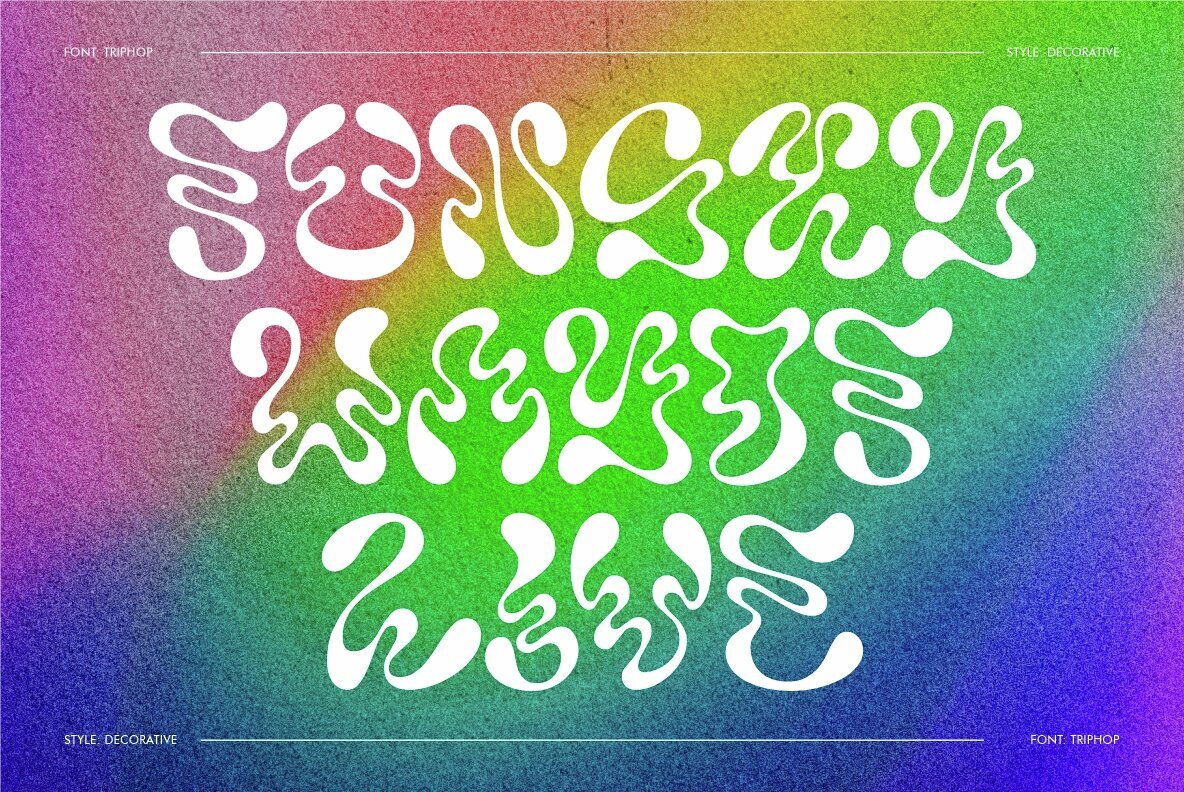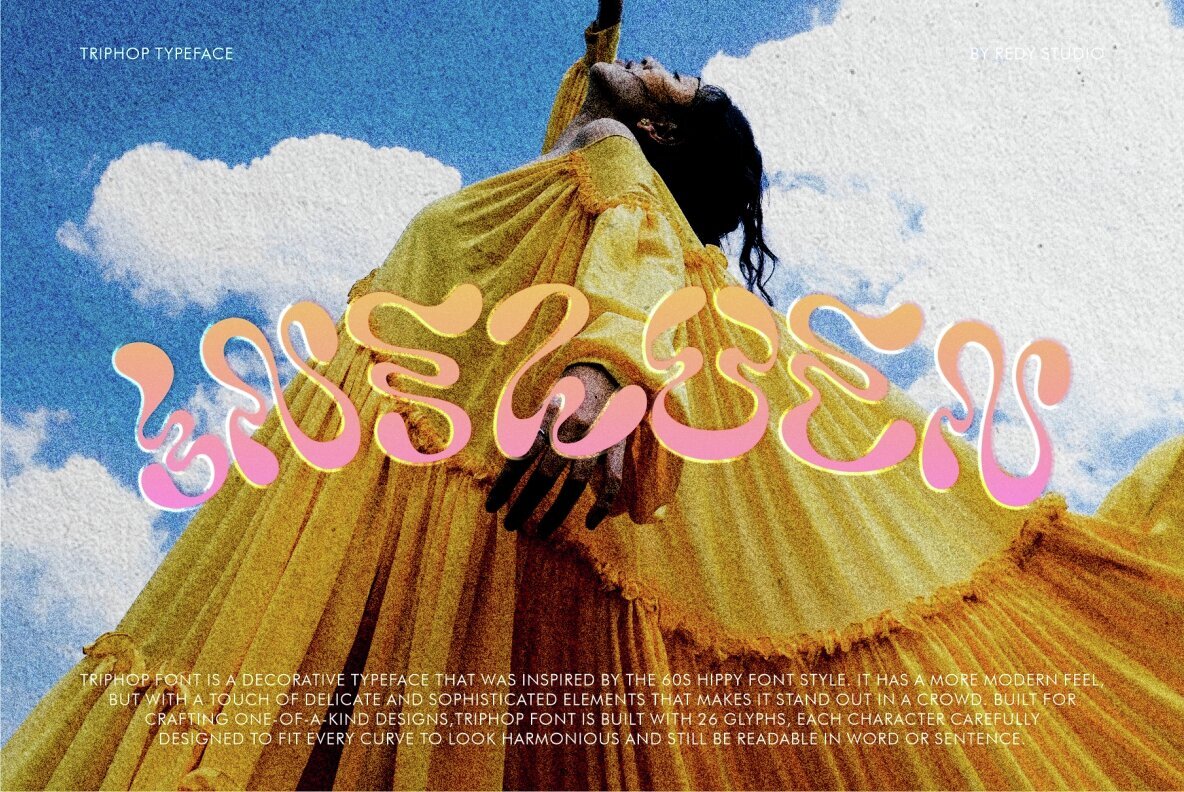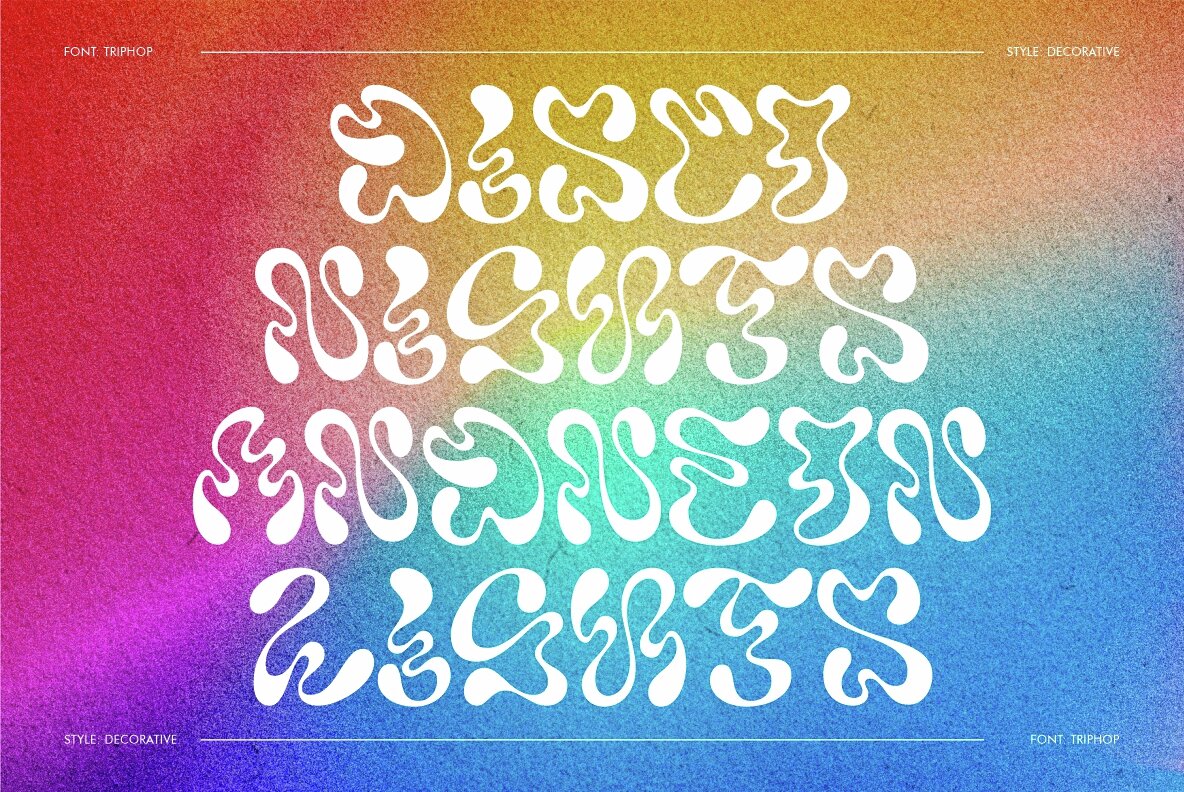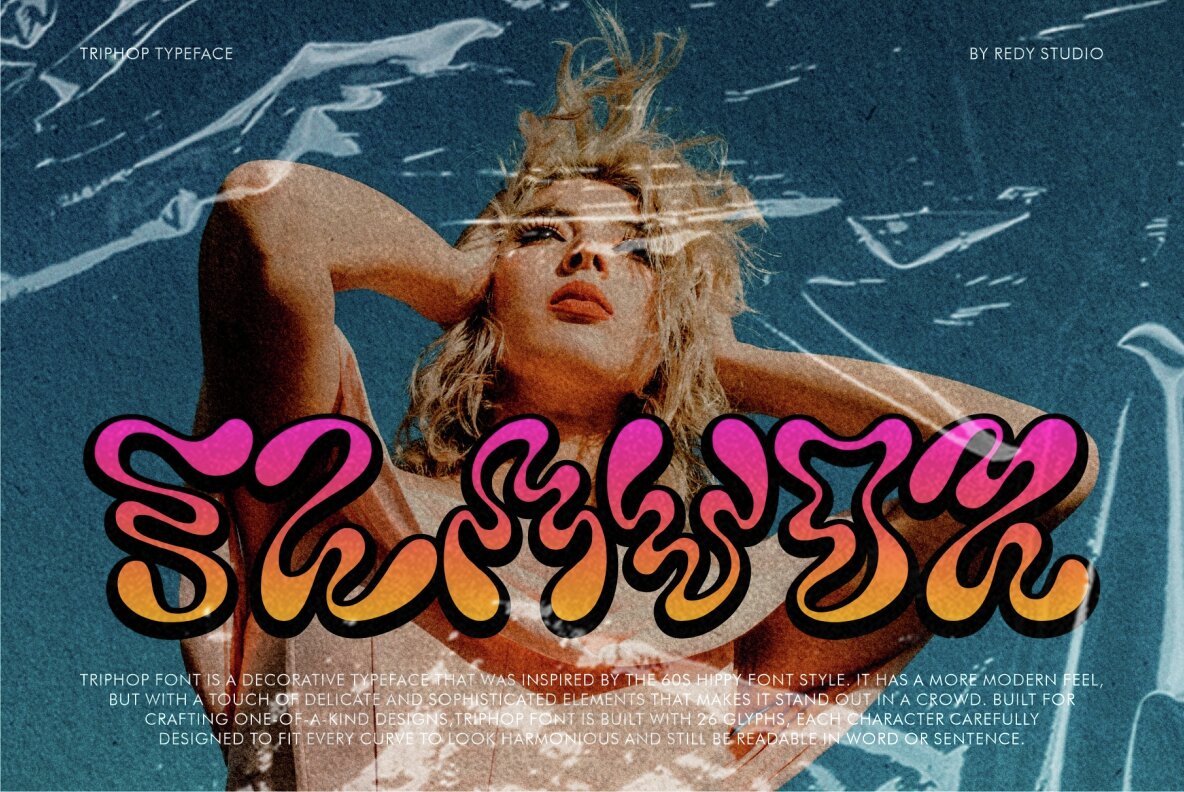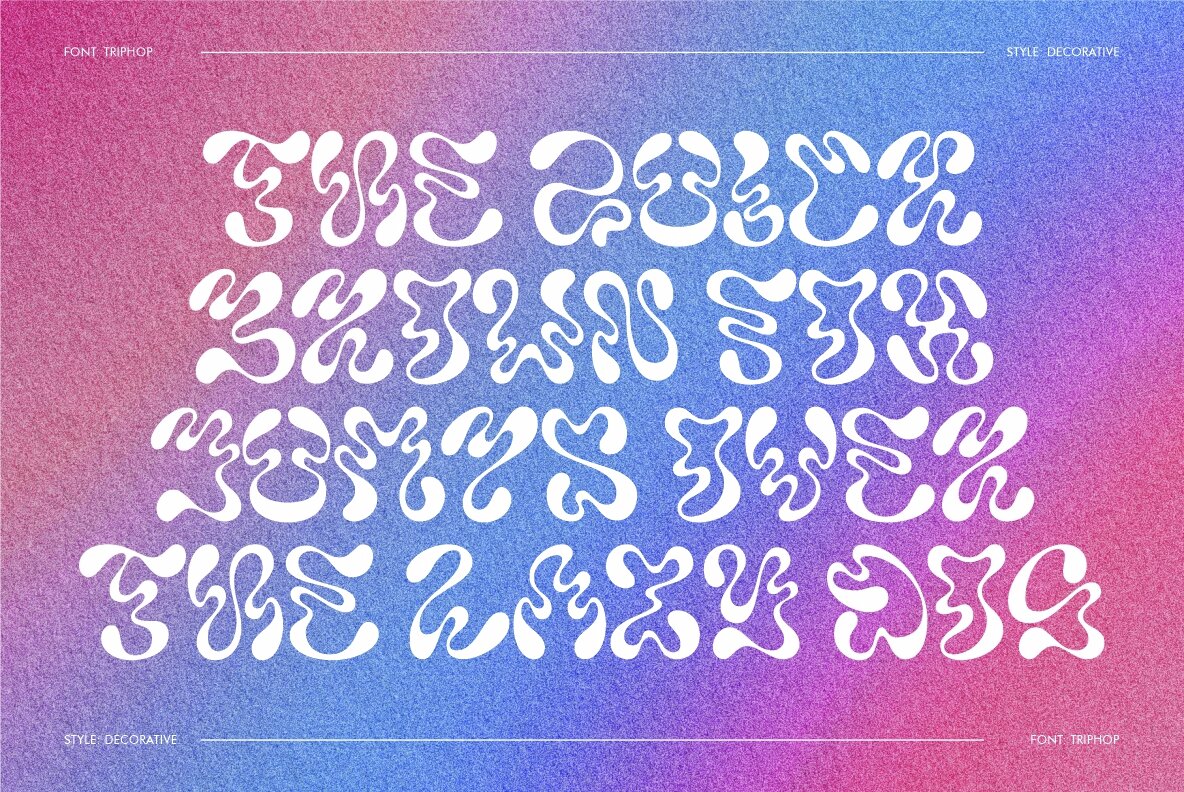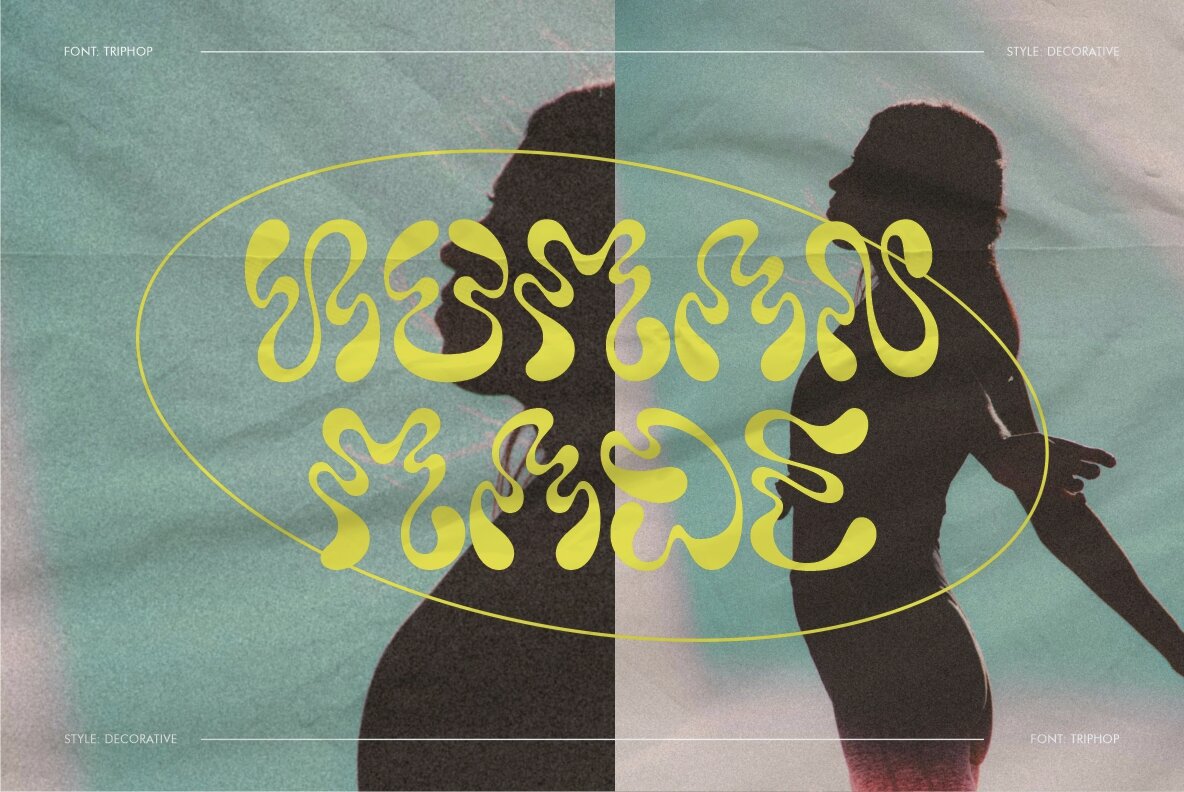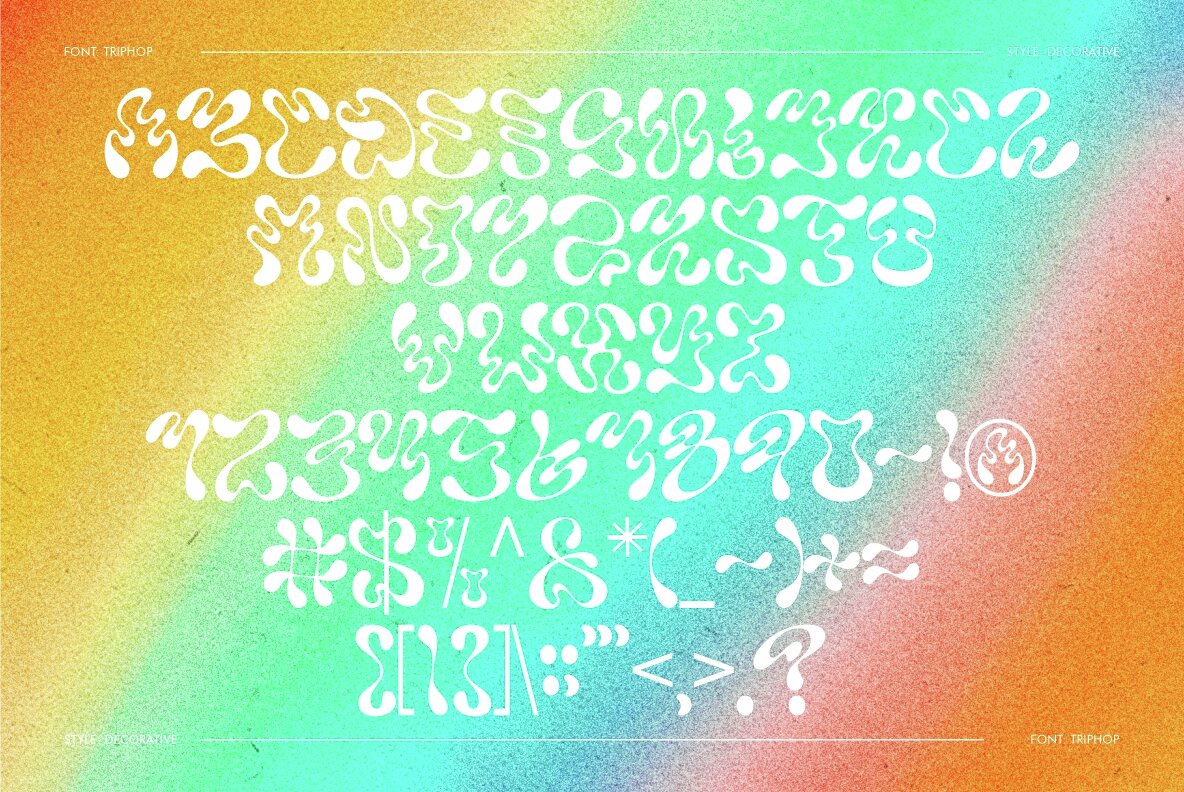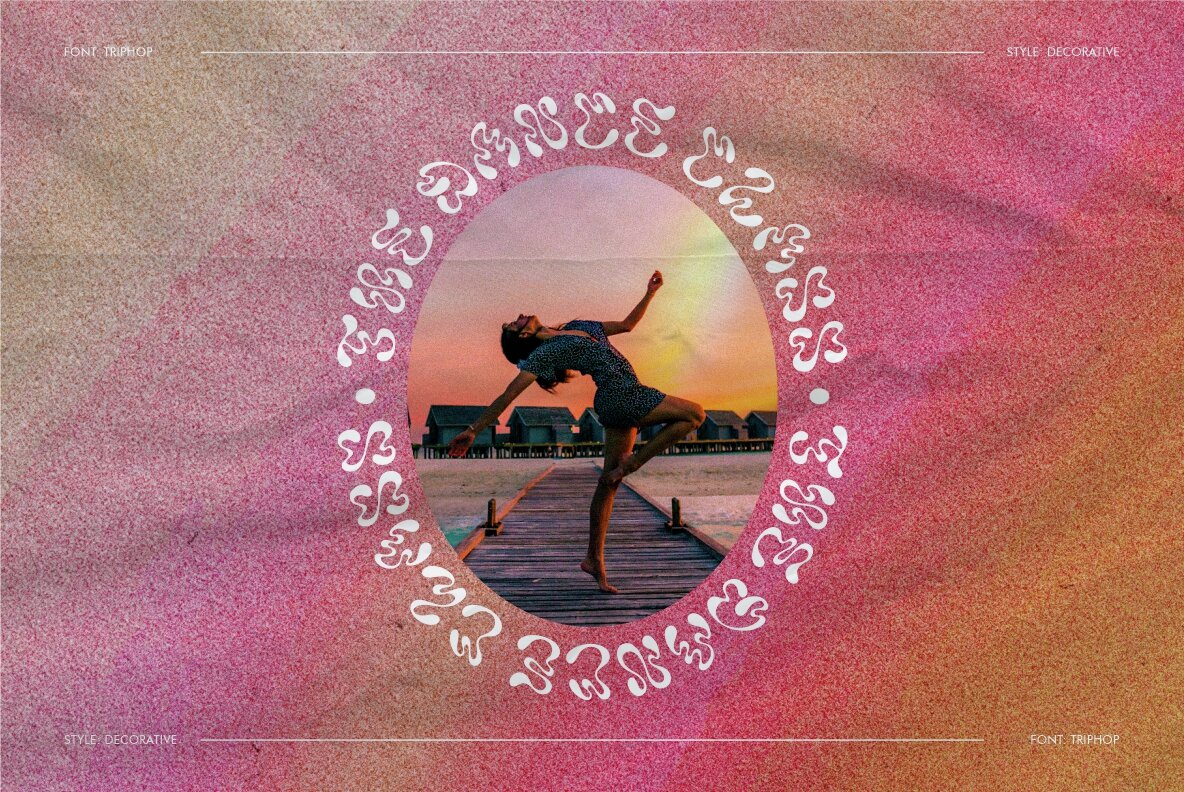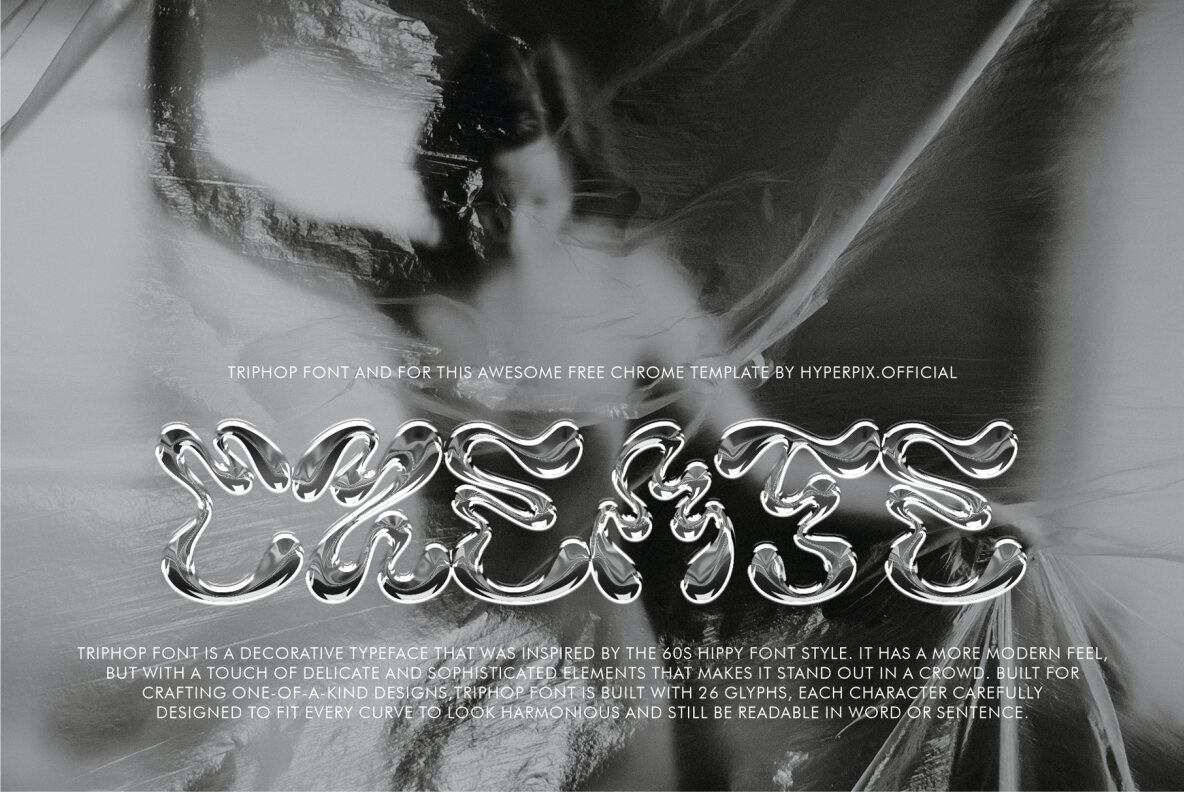
TRIPHOP Font
Triphop Regular
Triphop Regilar
Triphop Decorative Typeface is a font that pays homage to the iconic 60s Hippy font style while infusing it with a modern twist. Inspired by the vibrant and free-spirited era of the 1960s, this typeface captures the essence of peace, love, and artistic expression. Triphop Decorative Typeface features whimsical and decorative letterforms that echo the fluidity and playfulness of the Hippy font style. Triphop font is built with 26 glyphs, each character carefully designed, The letters are adorned with intricate and ornamental details, such as swirls, curves, and embellishments, creating a sense of artistic flair and visual interest. These decorative elements add a touch of whimsy and nostalgia, evoking the psychedelic and countercultural aesthetics of the 60s. While rooted in the Hippy font style, Triphop incorporates modern design principles to ensure its versatility and usability. It strikes a balance between vintage charm and contemporary legibility, making it suitable for various creative projects. Whether you're designing retro-inspired posters, album covers, or event invitations, Triphop Decorative Typeface will bring a touch of 60s nostalgia to your designs while maintaining readability.